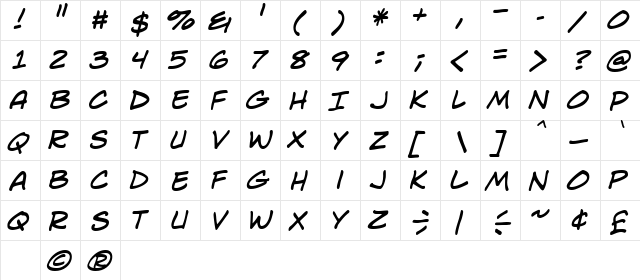
Lint McCree BB Italic Font Preview
Lint McCree BB Italic
Lint McCree BB Italic Font Details
Design Context for Lint McCree BB Typeface
Lint McCree BB is a composed and adaptable typeface that performs quietly and consistently across a wide range of design contexts. The dynamic lean of this cut emphasises speed and emphasis in any layout.
Pro Tip: Use Lint McCree BB for emphasis, pull quotes, and subheadings where its slanted energy can add rhythm to the layout.